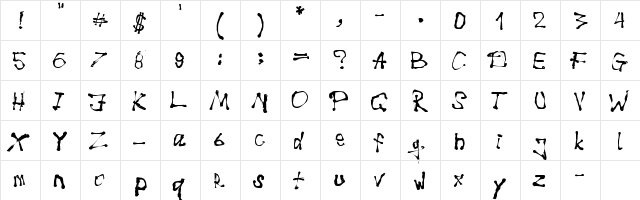
BItCH MUST DiE Regular
Design Context for BItCH MUST DiE Typeface
BItCH MUST DiE is a composed and adaptable typeface that performs quietly and consistently across a wide range of design contexts.
Pro Tip: Use BItCH MUST DiE in both headline and body roles to test its range before committing to a single application.